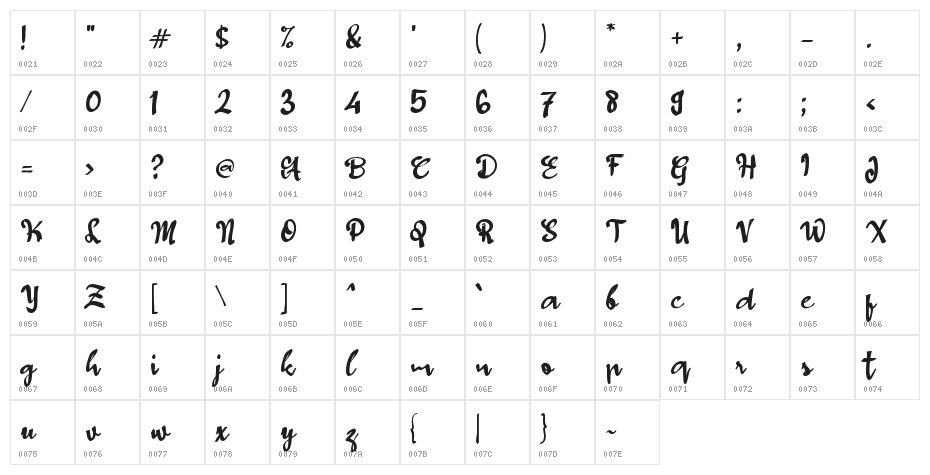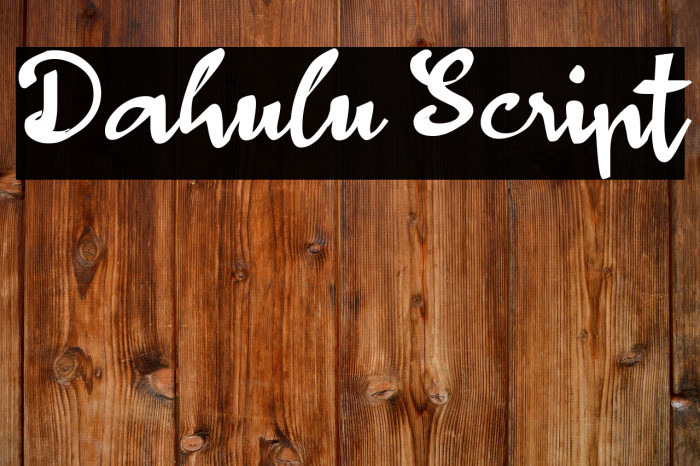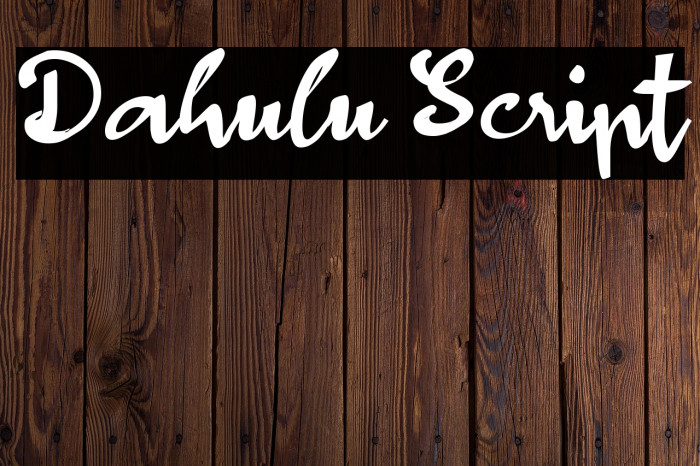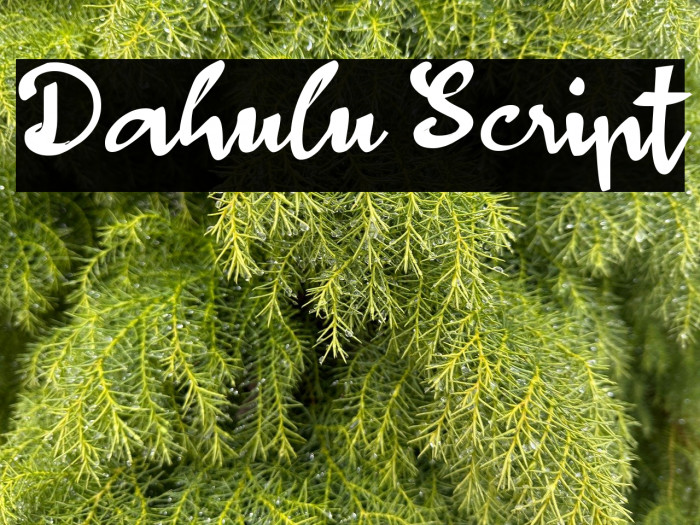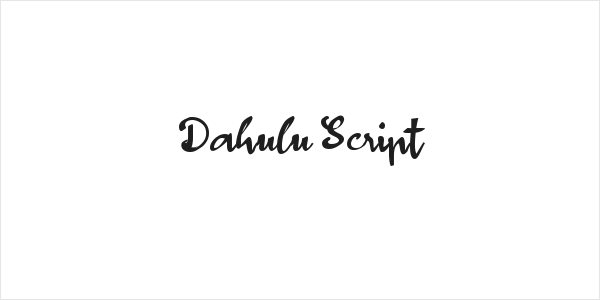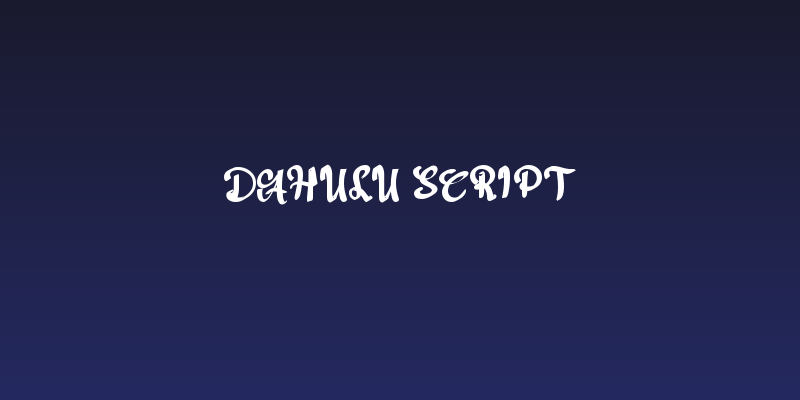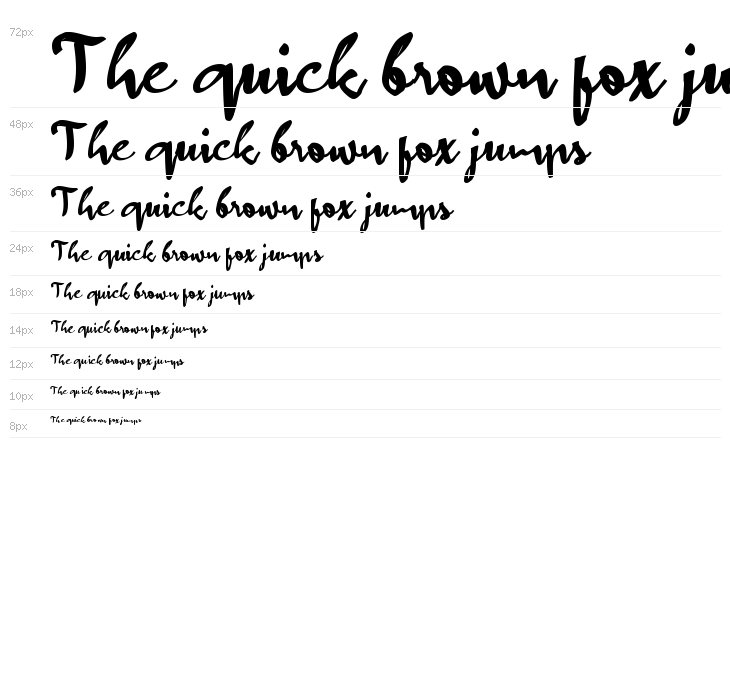
Dahulu Script Font
Dahulu Script Description
This font features a bold and expressive script style with a dynamic flow, reminiscent of traditional calligraphy. The uppercase letters are characterized by their dramatic flourishes and bold strokes, while the lowercase letters maintain a consistent rhythm with elegant curves. The numbers are equally bold, ensuring visibility and impact. Special characters are designed to complement the overall aesthetic, adding a touch of sophistication. This font's artistic flair makes it ideal for creative projects that require a personal touch.